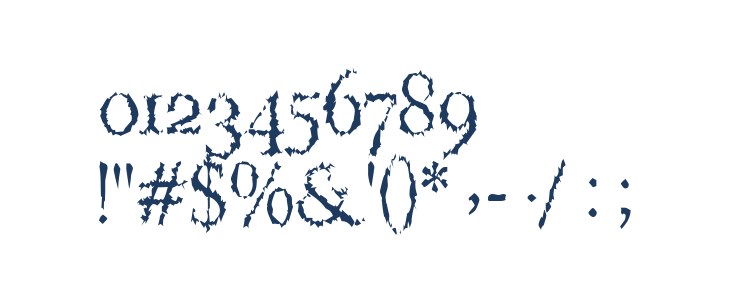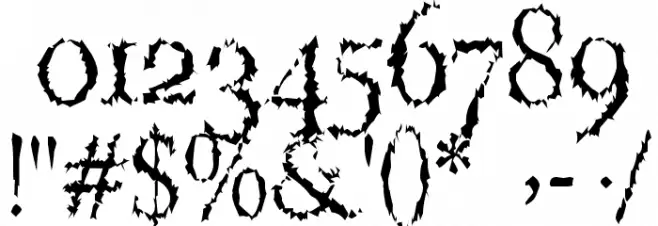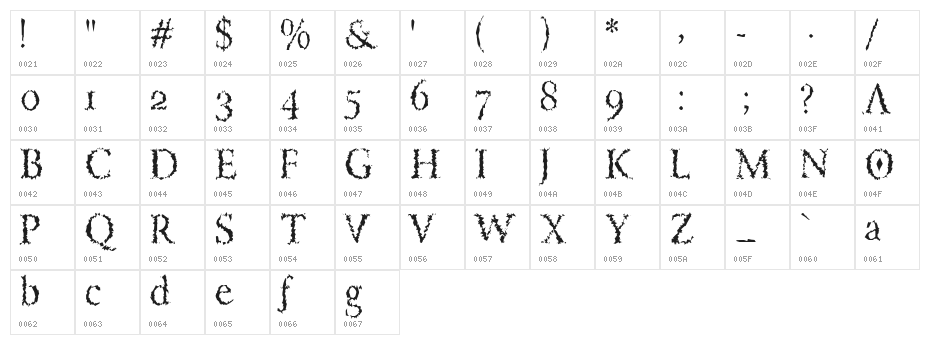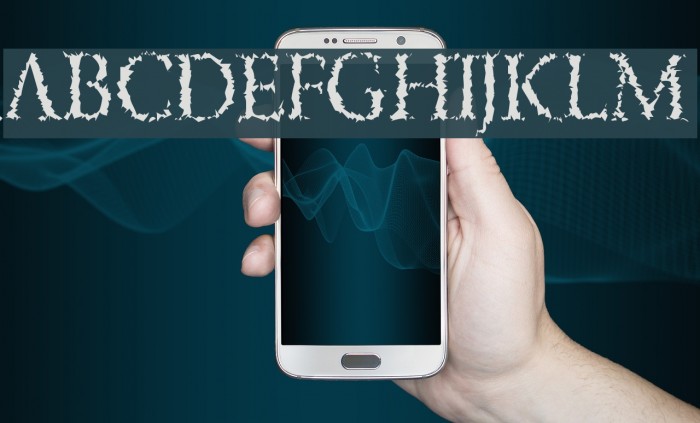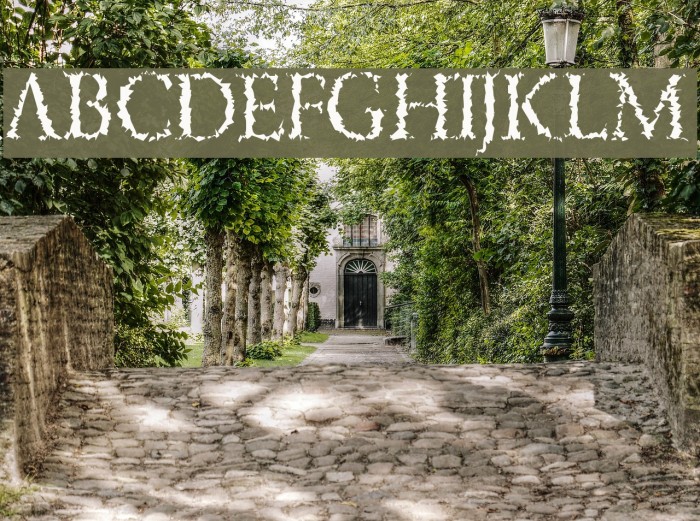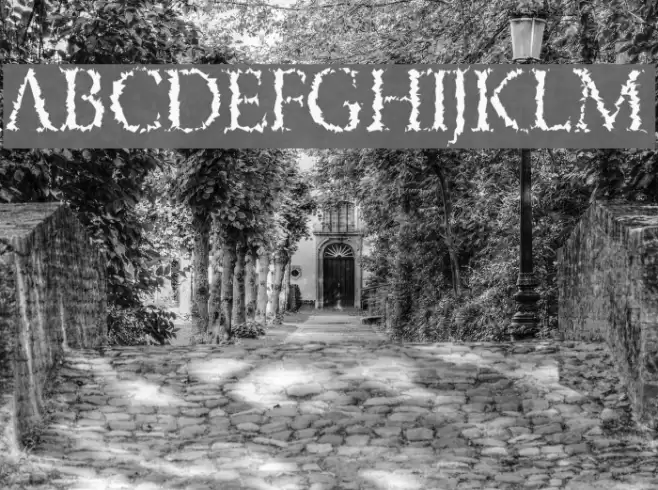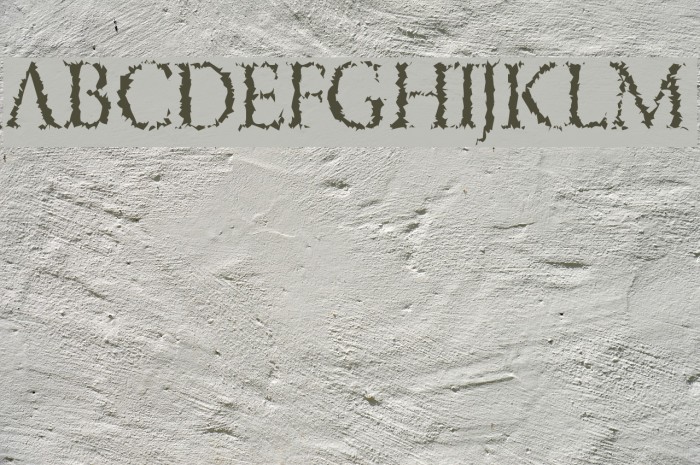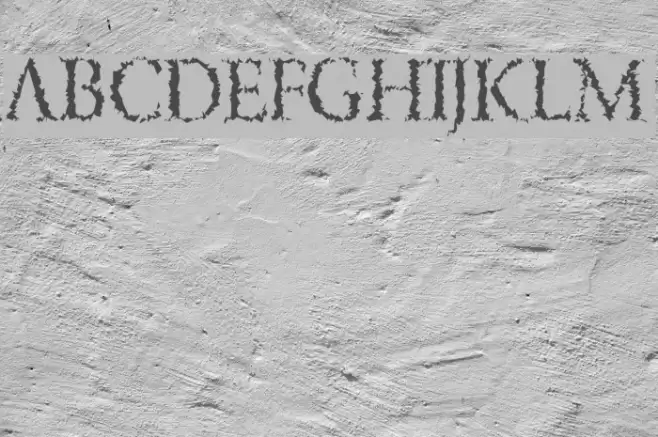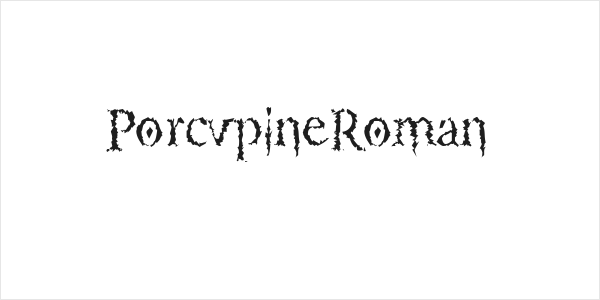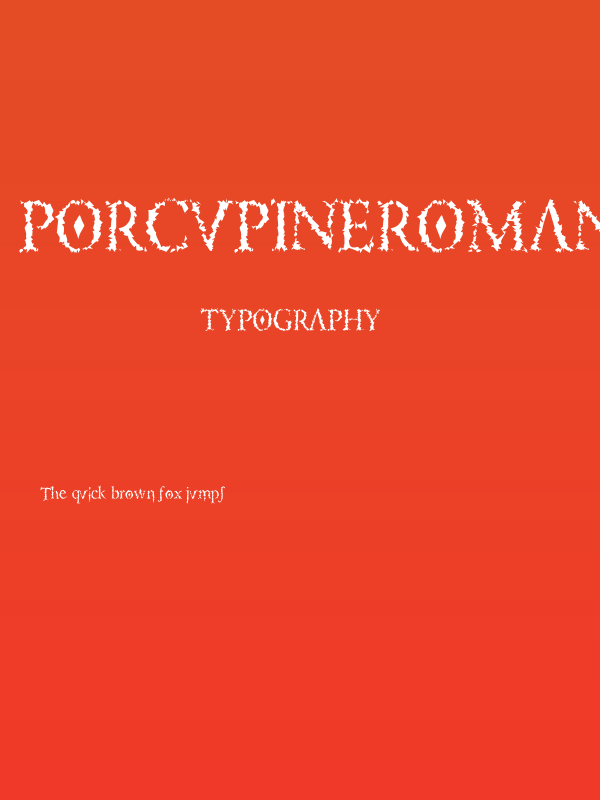
PorcupineRoman Font
PorcupineRoman Description
This font features a distinctive, jagged appearance reminiscent of thorns or spikes, giving it a unique and edgy look. The characters are sharply defined with irregular edges, creating a sense of movement and energy. This style is particularly eye-catching and would stand out in any design. The uppercase and lowercase letters maintain a consistent style, with the uppercase being slightly more pronounced. Numbers and special characters follow the same design principles, ensuring a cohesive look across all text elements. The font's bold and striking nature makes it ideal for attention-grabbing headlines or artistic projects.
| Use Case | Headlines, Logos, Artistic projects |
| Proposed Projects | Ideal for album covers, horror-themed posters, edgy branding, or any project requiring a bold, unique typeface. |